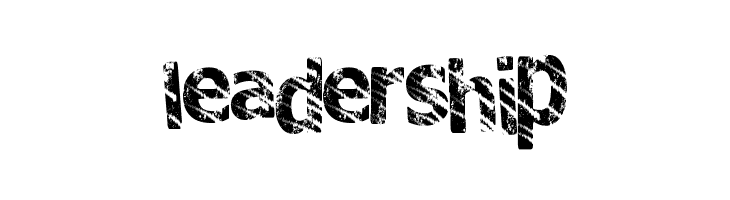
A playful and elegant script font with a handwritten style.
An elegant, flowing script font with high contrast and an italic slant.
A playful, casual handwritten font with irregular strokes.
A bold, condensed, and modern font with a strong vertical emphasis.
A bold, decorative font with vintage, western-inspired serifs and high contrast strokes.
A bold, rounded, and playful hand-drawn font with a friendly aesthetic.
A bold, outlined font with a modern and playful aesthetic.
A bold, distressed font with a grunge texture, ideal for edgy designs.
A bold, textured font with a playful, hand-drawn style.
A bold, three-dimensional font with a striking shadow effect.
A bold, patterned font with a playful and modern design.
A casual, handwritten italic font with smooth, rounded characters.
A playful, casual handwritten font with uneven strokes and a friendly appearance.
A bold, playful font with whimsical loops and curves, ideal for creative designs.
A bold, rounded font with a modern and playful style.
Bold, distressed display font with dripping effects.
Distressed, bold slab serif with a vintage, rugged look.
A bold, flowing script font with elegant, cursive letterforms.
A bold, modern sans-serif font with geometric precision and strong impact.
A bold, modern sans-serif font with clean lines and geometric structure.
A flowing, cursive script font with elegant loops and swashes.
A bold, modern sans-serif font with geometric shapes and clean lines.
A bold, distressed font with a vintage, industrial feel.
A casual, playful handwritten font with fluid, dynamic strokes.
A bold serif typeface with a classic and authoritative style.
A classic serif font with elegant proportions and refined strokes.
A playful, hand-drawn font with a whimsical and informal style.
A graceful, handwritten font with smooth, flowing strokes.
A bold, expressive brush-style font with dynamic, textured strokes.
An elegant script font with flowing, interconnected letters and delicate flourishes.
An elegant and flowing script font with a classic, sophisticated style.
A bold, cursive font with dynamic and flowing characters.